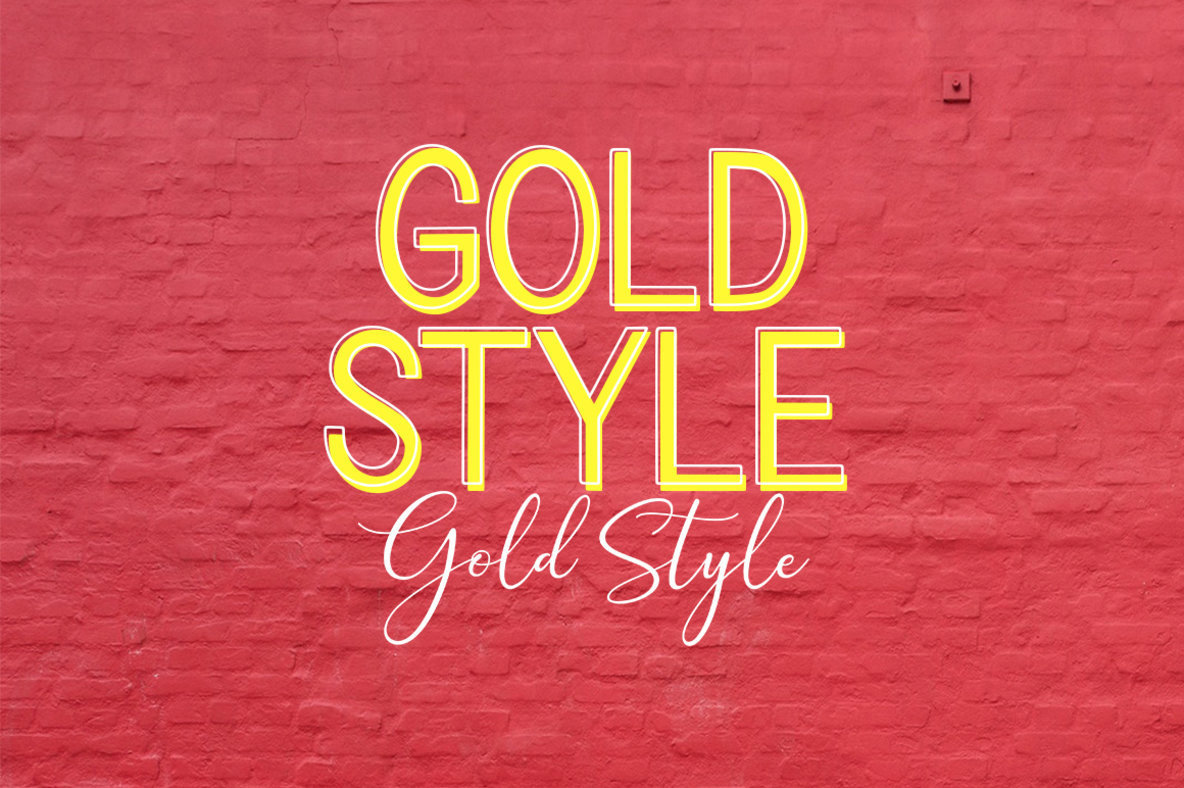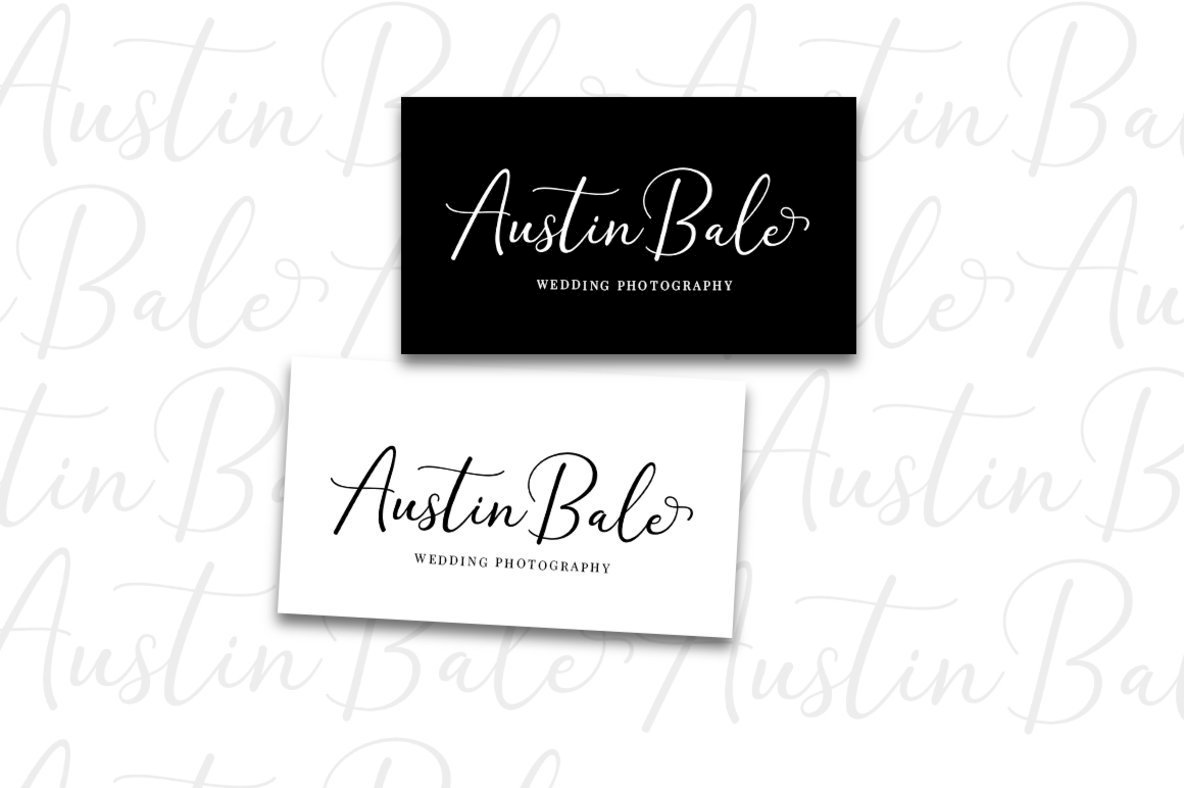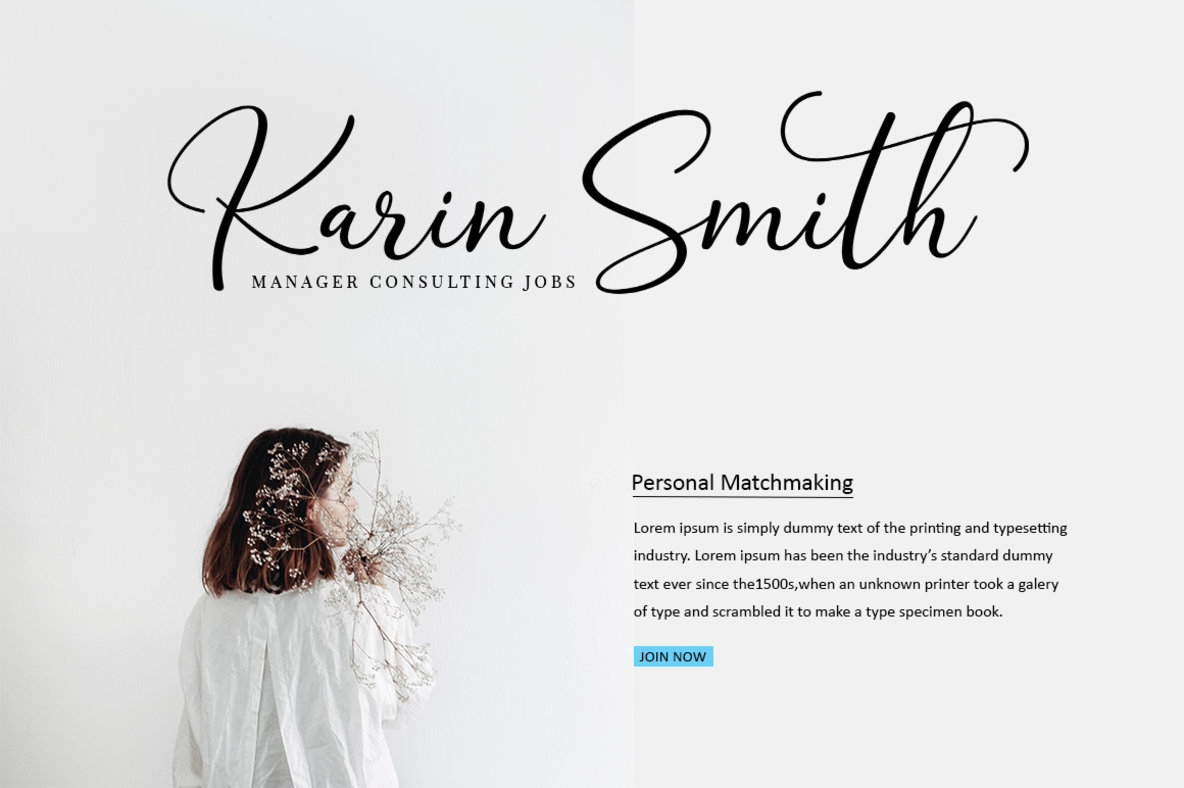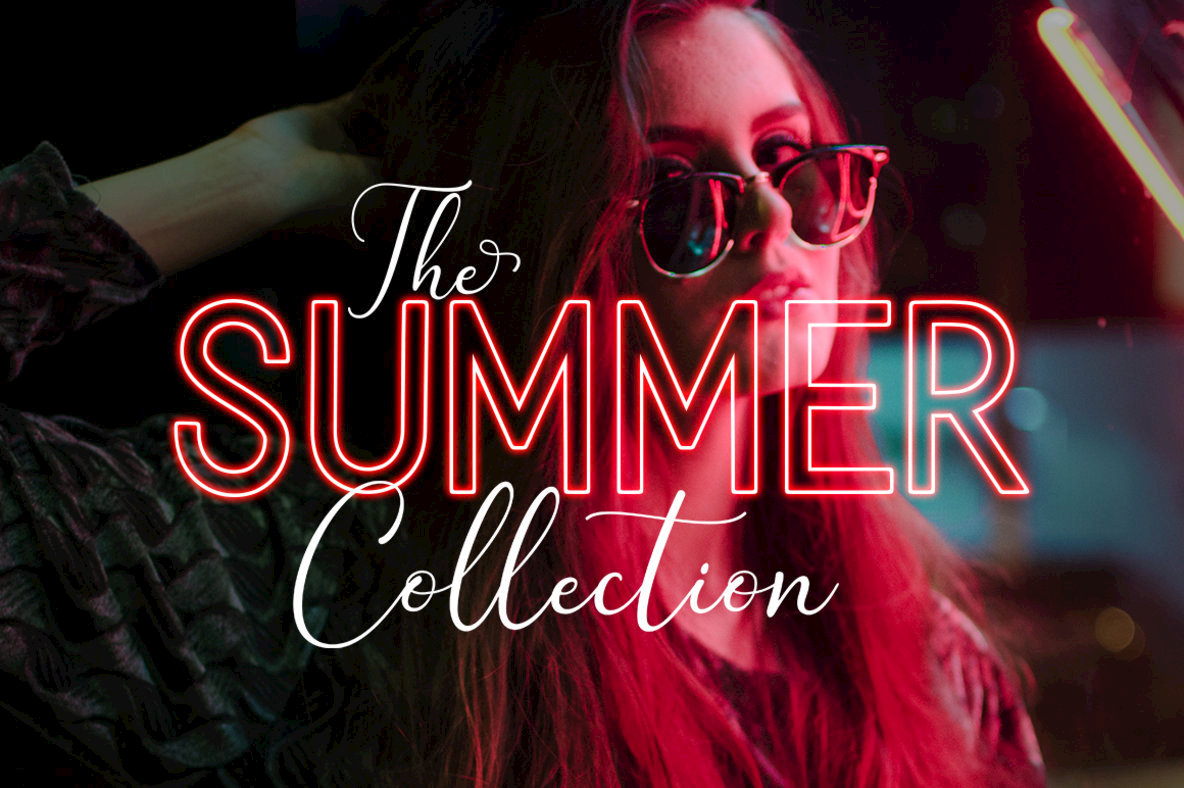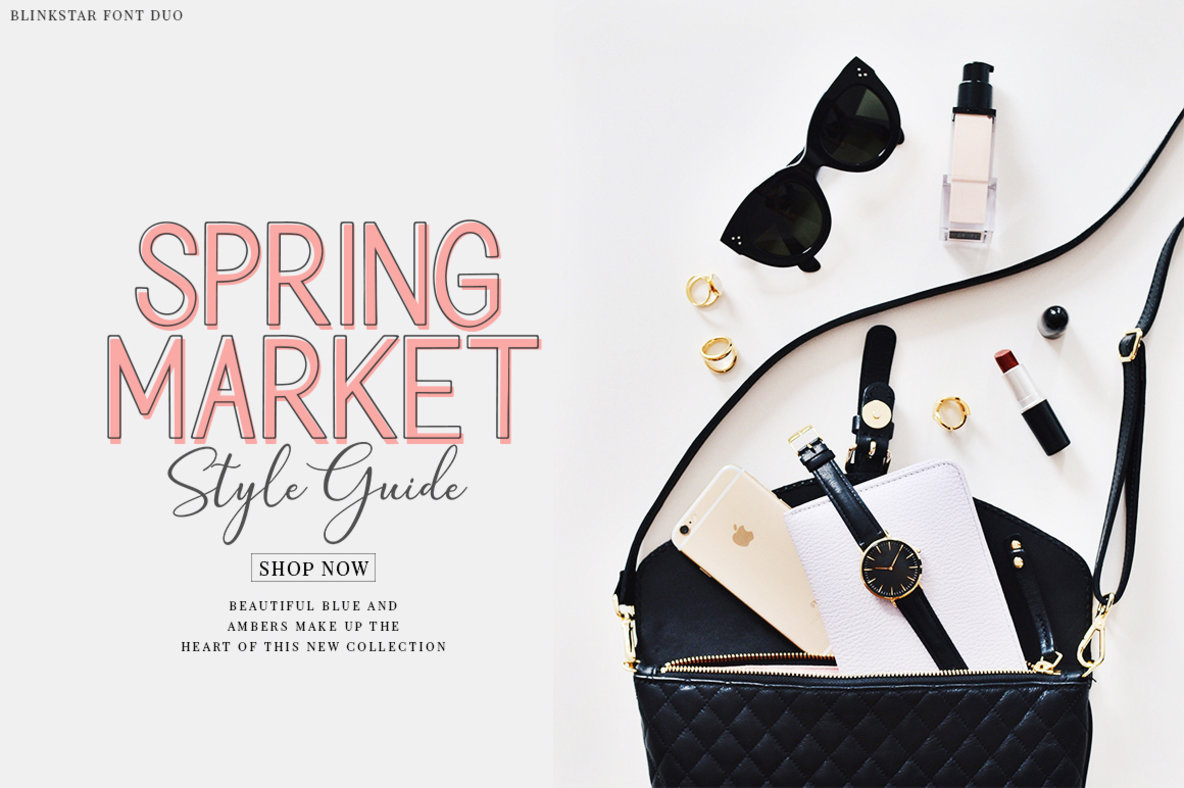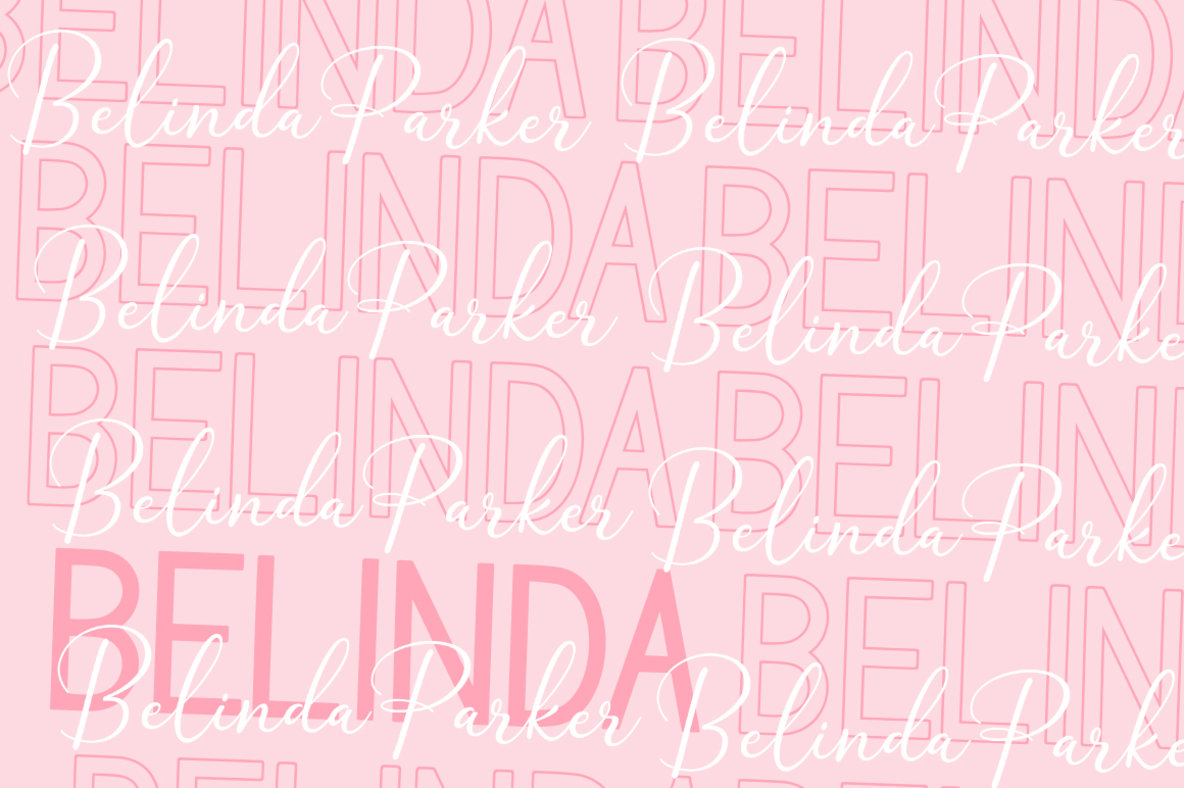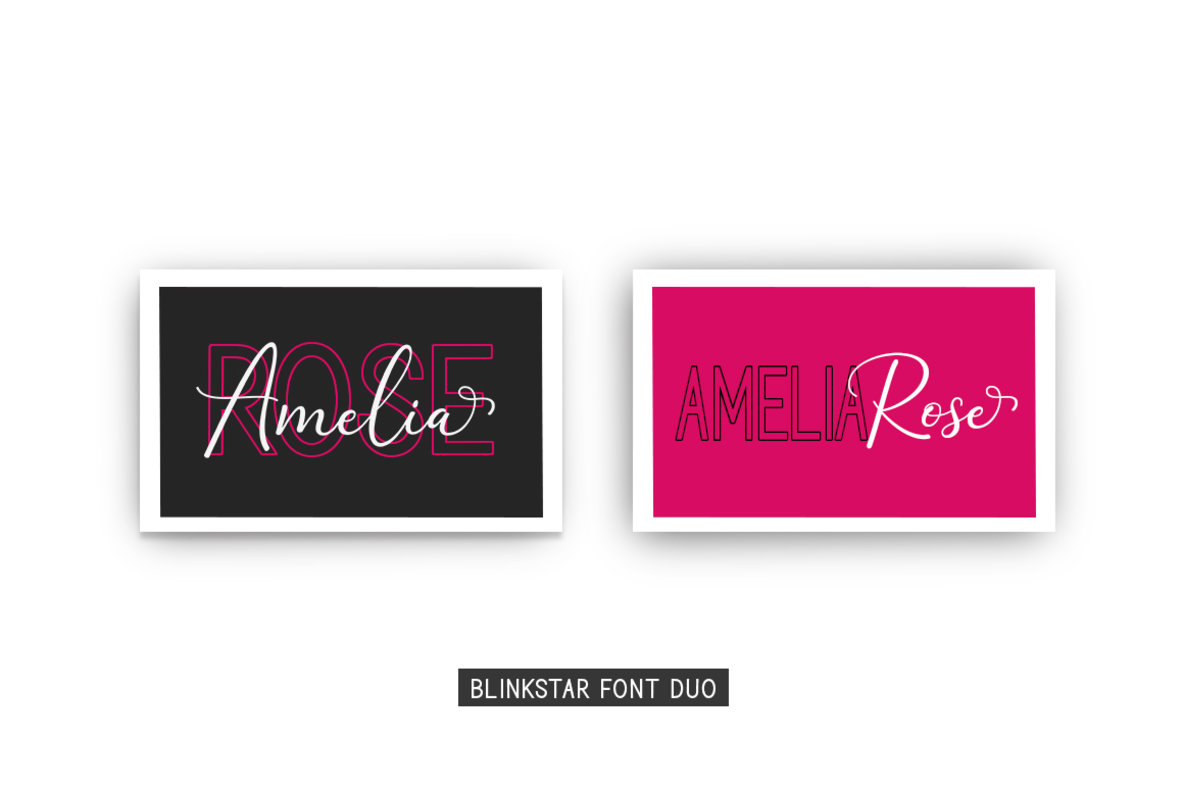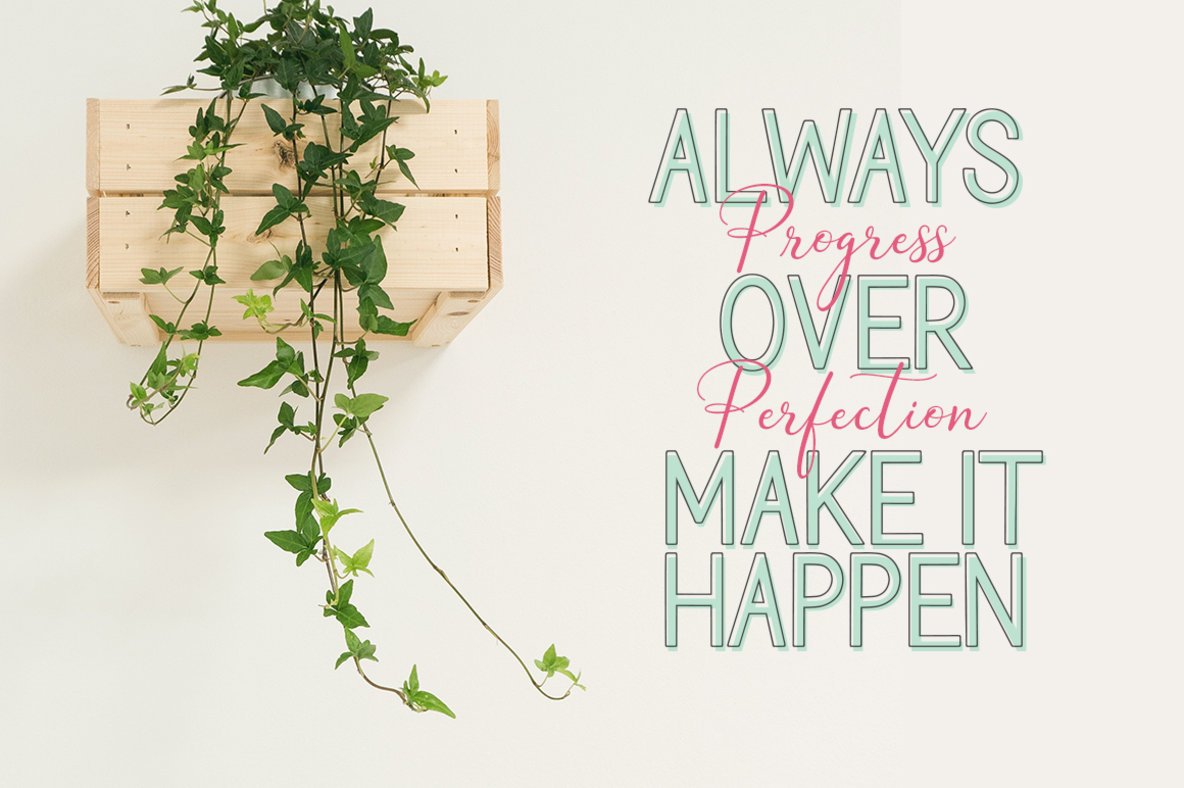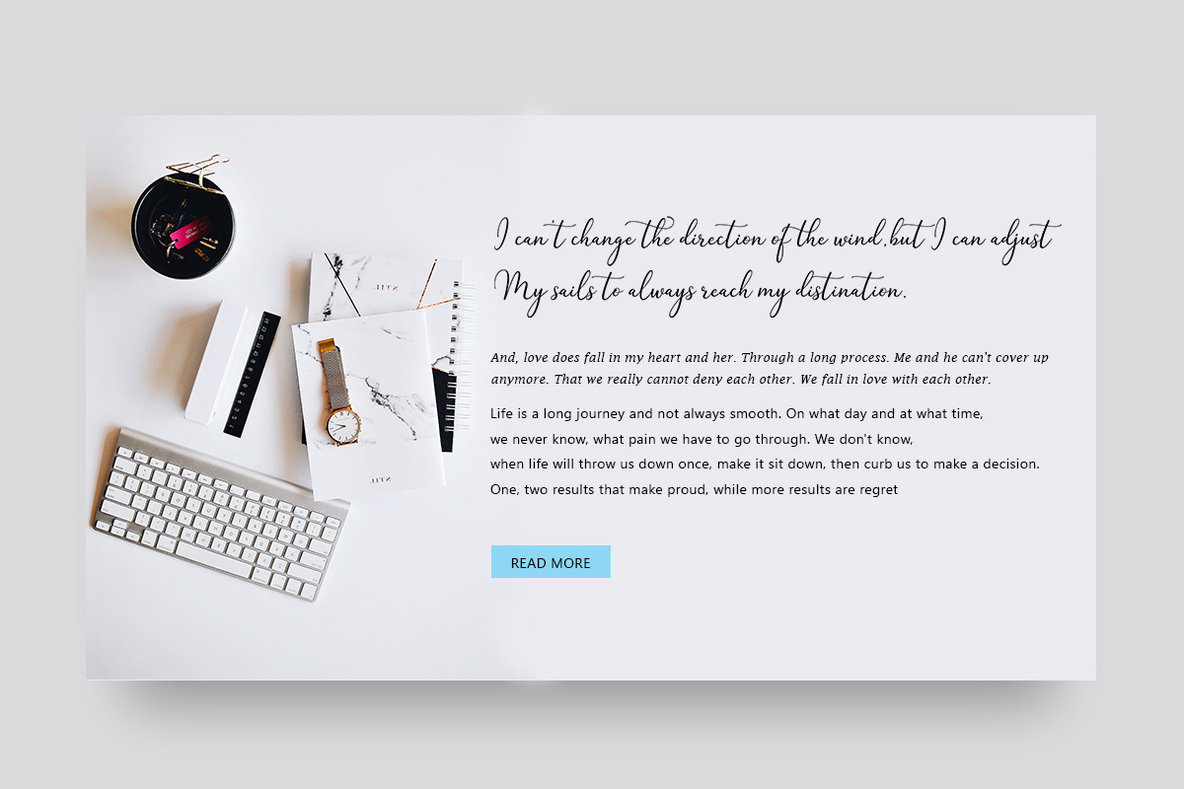
Blinkstar Font Duo
Blinkstar Font Duo is a playful script containing many choices of alternative characters to choose from as well as ligatures that look natural to add to the authenticity of letters. A collection of strange and initial swash tips is also included to add finishing touches or fill the design space in your type design.
Blinkstar scripts are calligraphy handwriting fonts, loaded with awesome opentype features, and full alternative upper and lower case character sets. make custom letters a dream thanks to all the extra decorative choices you can enter for beautiful and unique customizations - swash, endings, alternative letters and ligatures all make it the prettiest little thing since tutus and tiara. Designed to work harmoniously, this duo font consists of super fine and casual signature scripts and a complete and clean set of all sans serif letters. Sans Serif fonts consist of two outline fonts of different weights, and a regular version. Layer them with different colors and turbidity to get a million different views.
This font is perfect for branding, logos, web and editorial design, branding, prints, invitations, crafts, quotes, and more.